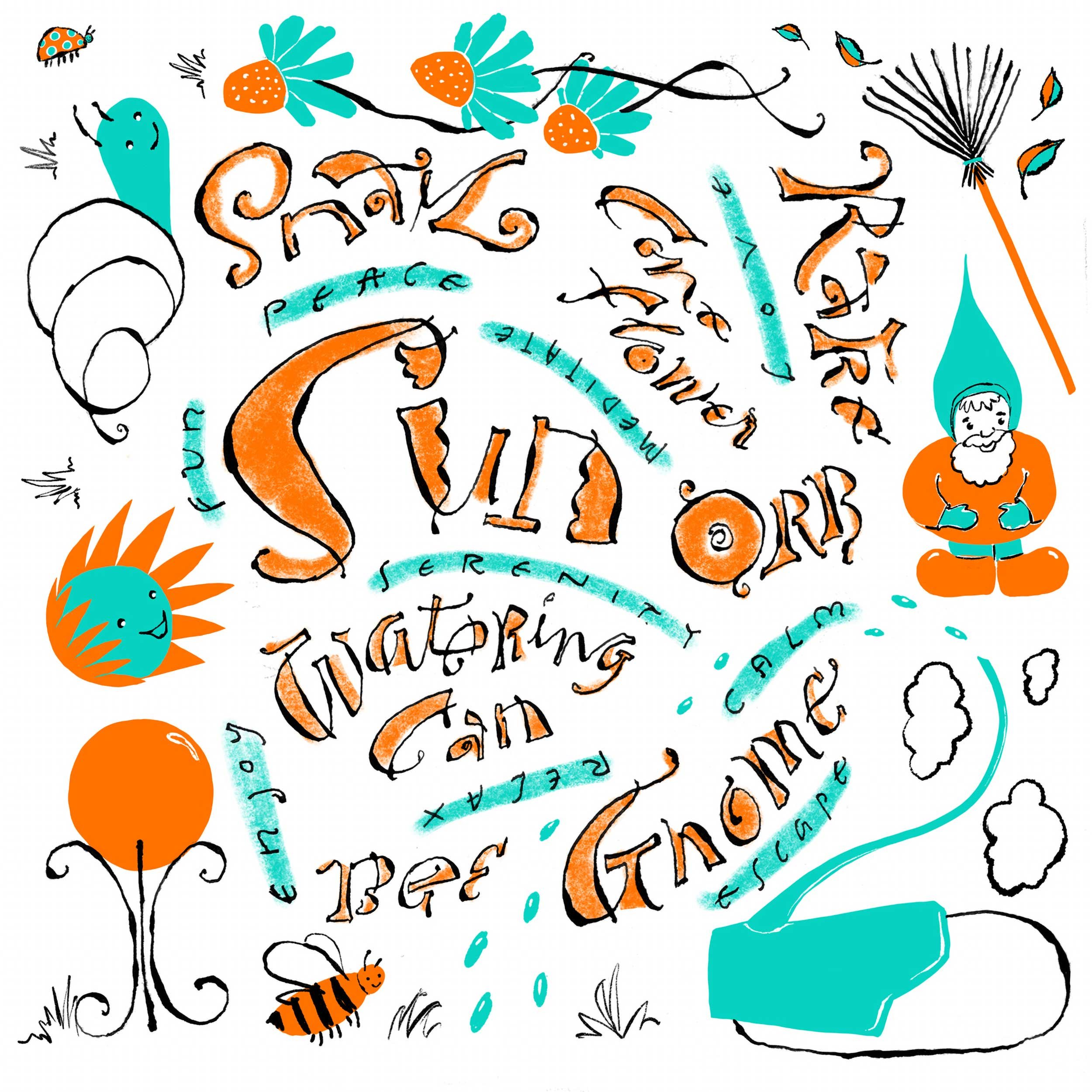
Garden Icons
Alex likes to mess around in his garden. He grows native and drought tolerant plants. For this piece he used a combination of traditional and digital tools. He used a pointed pen for the lettering and parts of the garden objects. Color comes from the Procreate app on his iPad Pro with Apple Pencil.